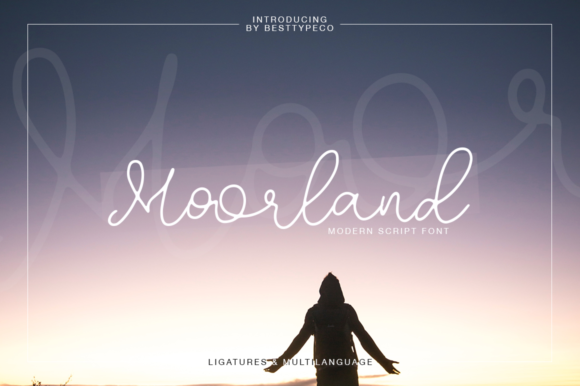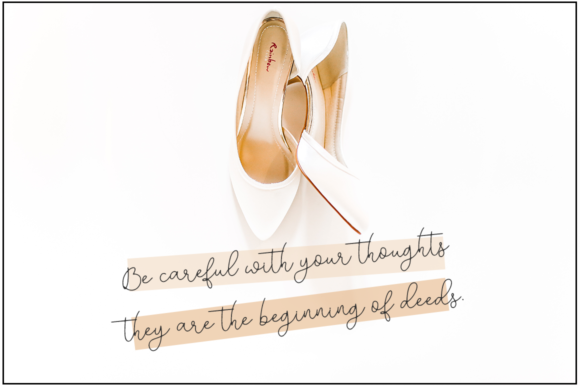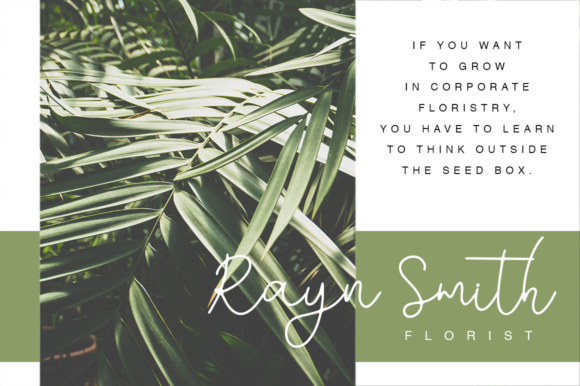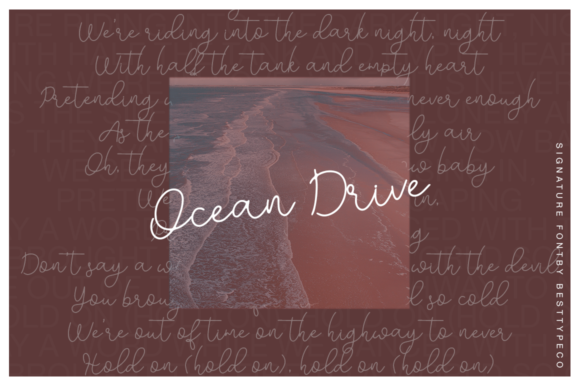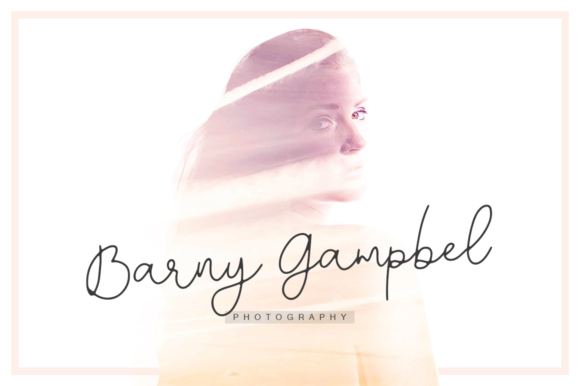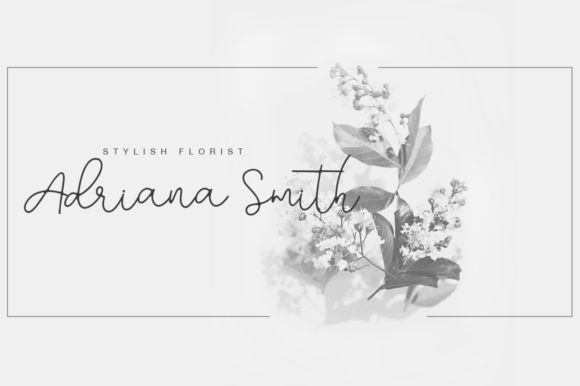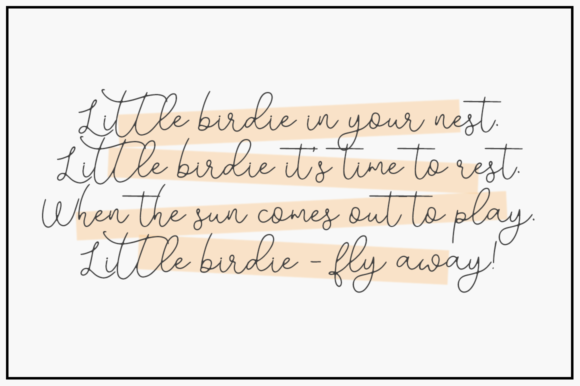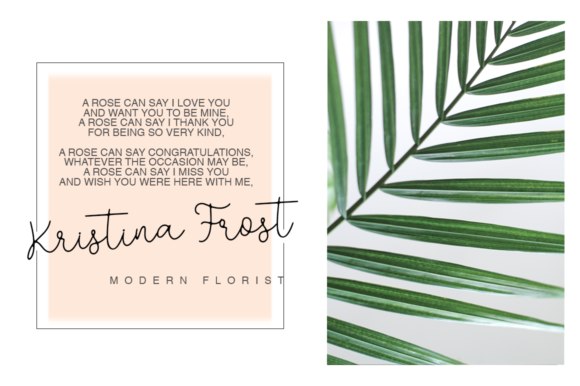
Moorland Font
About Moorland Font
The Moorland is a beautiful handmade calligraphy font. Its swirly letters will give your design an elegant touch.
Very suitable for greeting cards, branding materials, business cards, quotes, posters, and more!